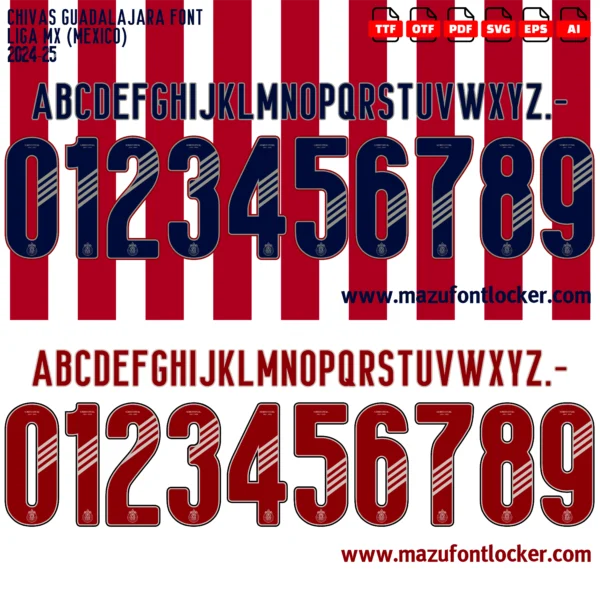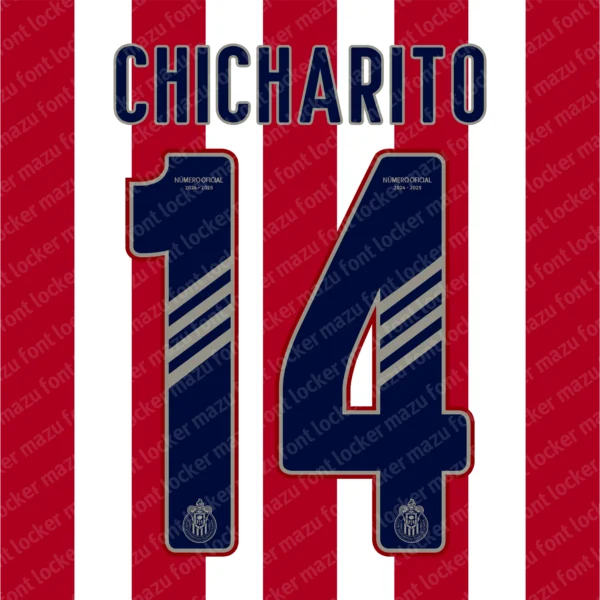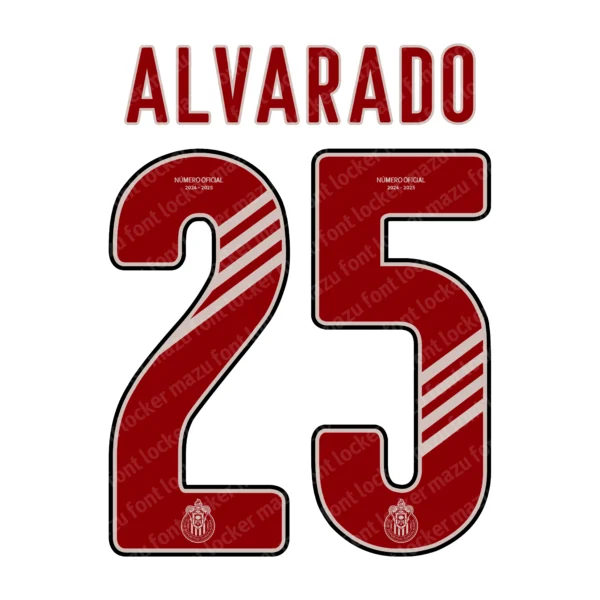
Chivas Guadalajara 2024-2025 Font Vector – Glorious Chivas Masterpiece
This font captures the bold, fearless, fiery, and ultra-premium lettering that perfectly reflects Chivas Guadalajara’s legendary Mexican heritage combined with the fierce, unstoppable, and proud spirit of El Rebaño Sagrado — delivering unmatched elegance, intense passion, elite craftsmanship, and pure Guadalajara fire for premium jersey mockups, epic football designs, spectacular sports visuals, standout fan creations, and professional branding projects.
Chivas Guadalajara 2024-2025 Font Vector – Authentic Rebaño Sagrado Typeface
The Chivas Guadalajara 2024-2025 Font Vector is a premium typeface that accurately recreates the official match lettering worn by Club Deportivo Guadalajara during the 2024-2025 season. This high-quality vector font kit captures the bold, passionate, and iconic typography that represents the pride, tradition, and fighting spirit of the Rebaño Sagrado.
Designed for professional designers and passionate Chivas supporters, the Chivas Guadalajara 2024-2025 Font Vector delivers perfect authenticity for creating realistic jersey mockups, fan merchandise, matchday posters, social media graphics, and Mexican football content. It pairs beautifully with the legendary red and white Chivas kit, one of the most recognizable club identities in Liga MX and North America.
This font stands out because of its sharp vector precision and strong club identity. Every letter and number is crafted to match the exact style used on the players’ shirts during Chivas’ 2024-2025 campaign. Whether you are creating realistic kit templates or exciting Rebaño-themed content, the Chivas Guadalajara 2024-2025 Font Vector gives your designs that authentic Estadio Akron atmosphere.
The letterforms in the Chivas Guadalajara 2024-2025 Font Vector are bold, modern, and highly readable. The strokes feature elegant geometric construction combined with athletic styling, creating a professional appearance that stands out on jerseys while preserving Chivas’ rich football heritage and Mexican passion.
The numerals feature strong curves and clean edges, delivering a confident and premium appearance. This vector design ensures flawless scalability and excellent legibility across both print and digital applications.
• Full uppercase A–Z and numbers 0–9 in authentic Chivas Guadalajara 2024-2025 style
• Includes the exact crest glyph placement used beneath player numbers
The Chivas Guadalajara 2024-2025 Font Vector is an independently designed typeface package. It is carefully crafted to replicate the official shirt lettering style used during Chivas’ 2024-2025 season. This font kit is perfect for creative projects, fan edits, football-inspired artwork, and custom sports graphics.